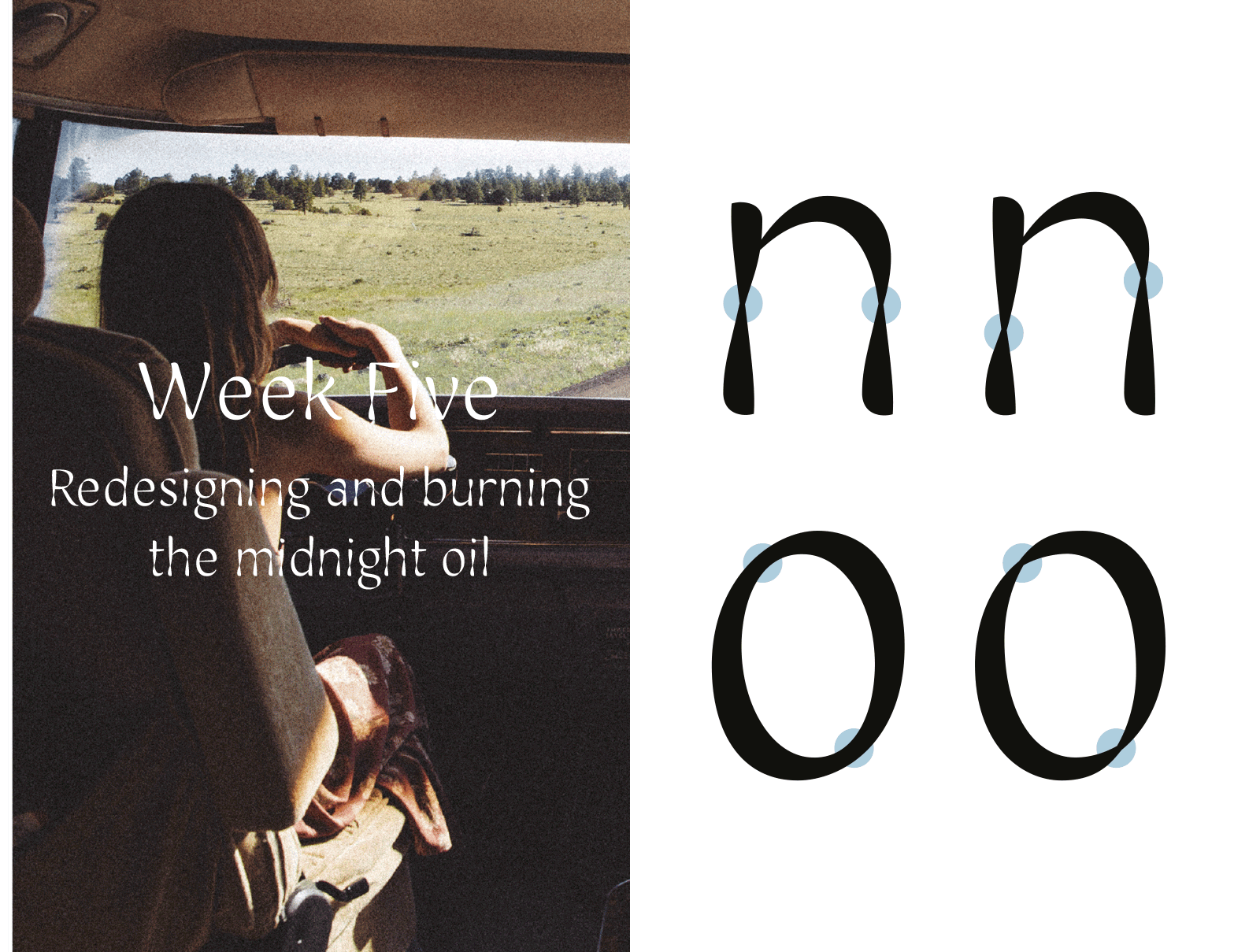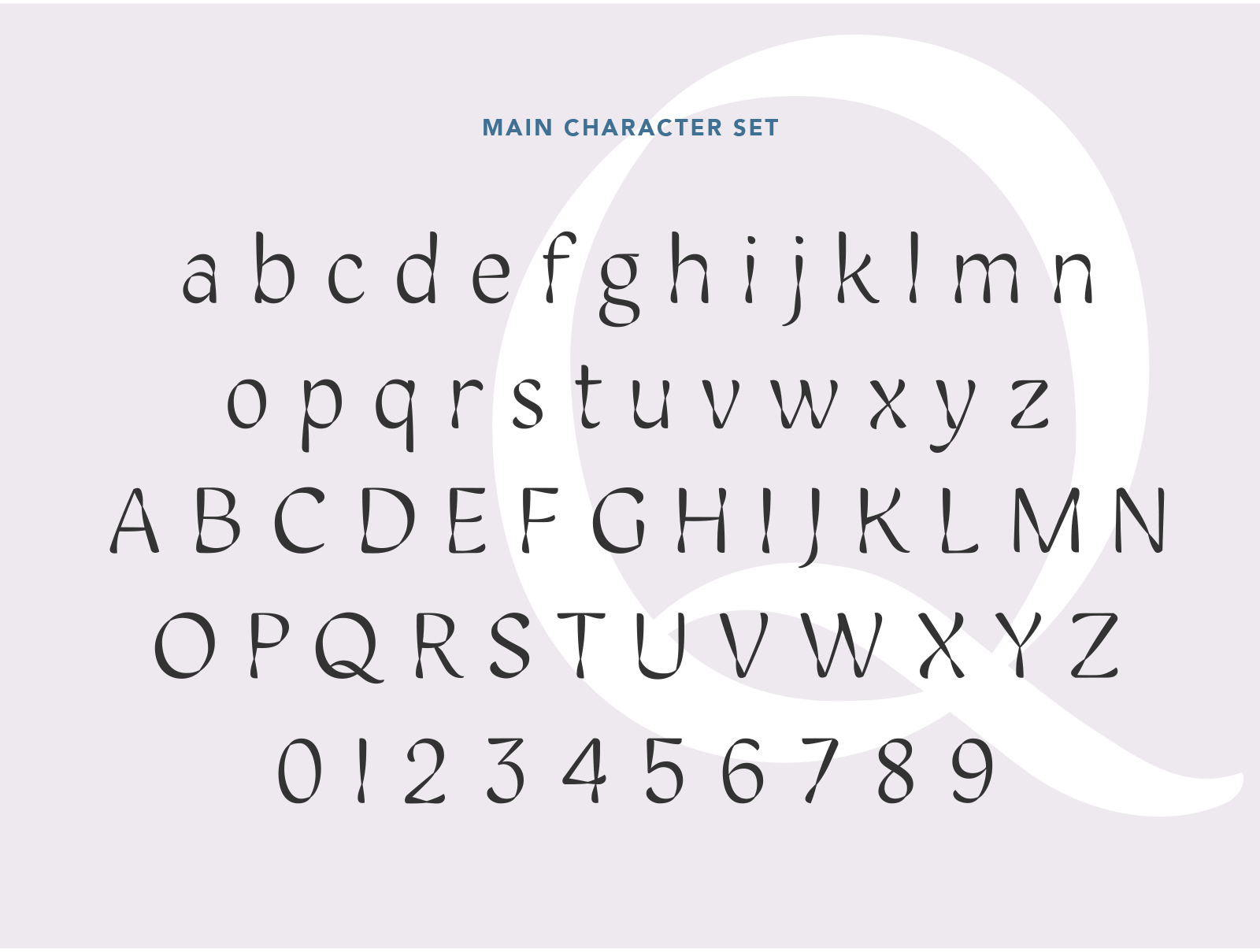
Camus
Camus is a delicate sans serif display face for larger print that can be used in smaller sizes with limited text. The typeface is influenced by broad nib calligraphy, but adds a subtle twist in each letter’s stem and points of high contrast. In smaller text, this treatment resembles a gradient effect inspired by early exercises in pressure using a soft pencil to draw the letters. The system of twists and the lightness of the typeface give it a soft, feminine look that works great for editorial and lifestyle brands of a similar sort.
Family expansion of Camus Sans include an italic, bold, and stencil face. The italic and bold work great for emphasis in headlines, text, and quotes, where the stencil works for headlines, printing and die-cutting.
Camus was named after Albert Camus, the French philosopher. He views reflected the extremities and the contradictions of life. My typeface and my process at Type Paris followed a very similar path. Camus is calligraphic, but not exactly. It seems to fit a few different categories at the same time. It has a light and airy feeling, but in other weights could be quite strong and forceful.